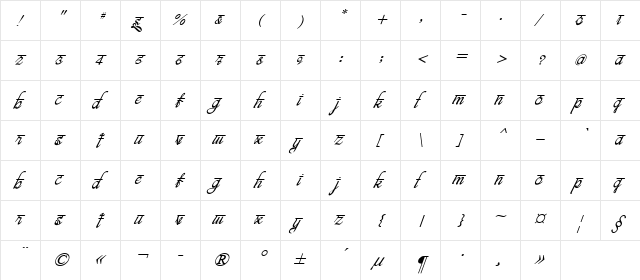
bits indian calligra Regular
Design Context for bits indian calligra Typeface
bits indian calligra is a composed and adaptable typeface that performs quietly and consistently across a wide range of design contexts.